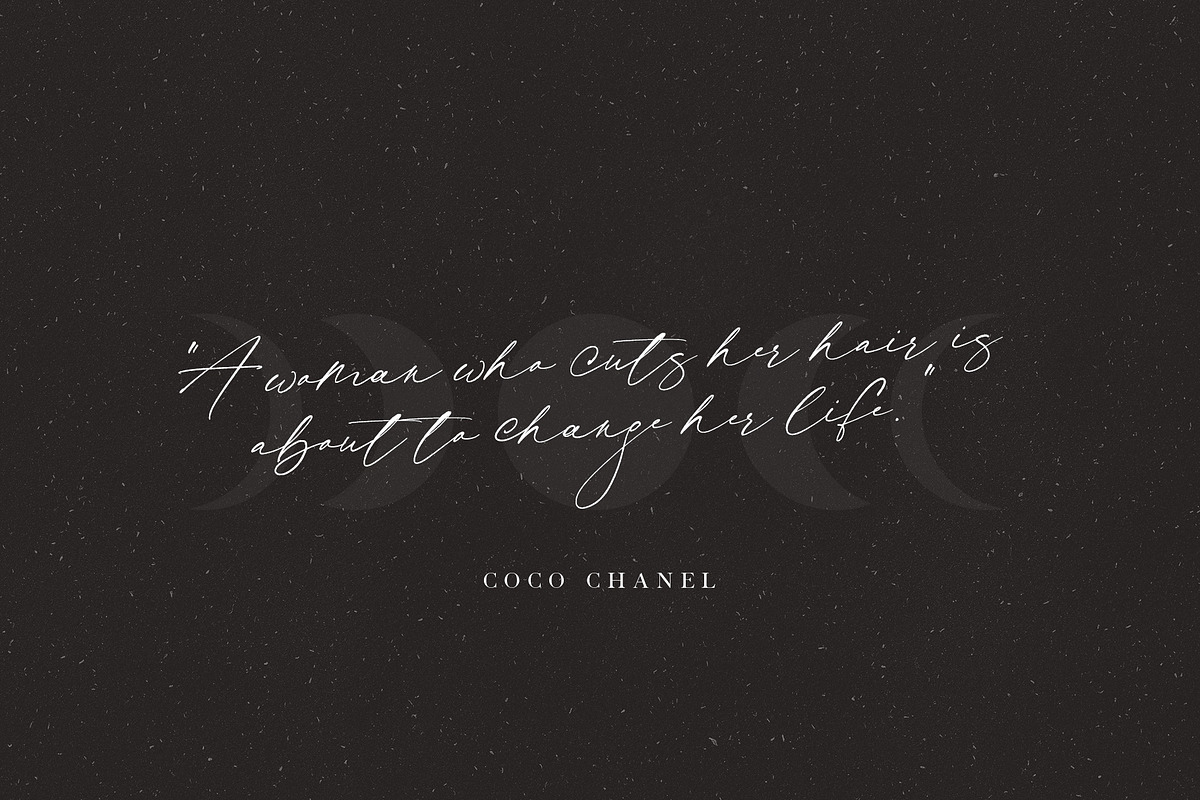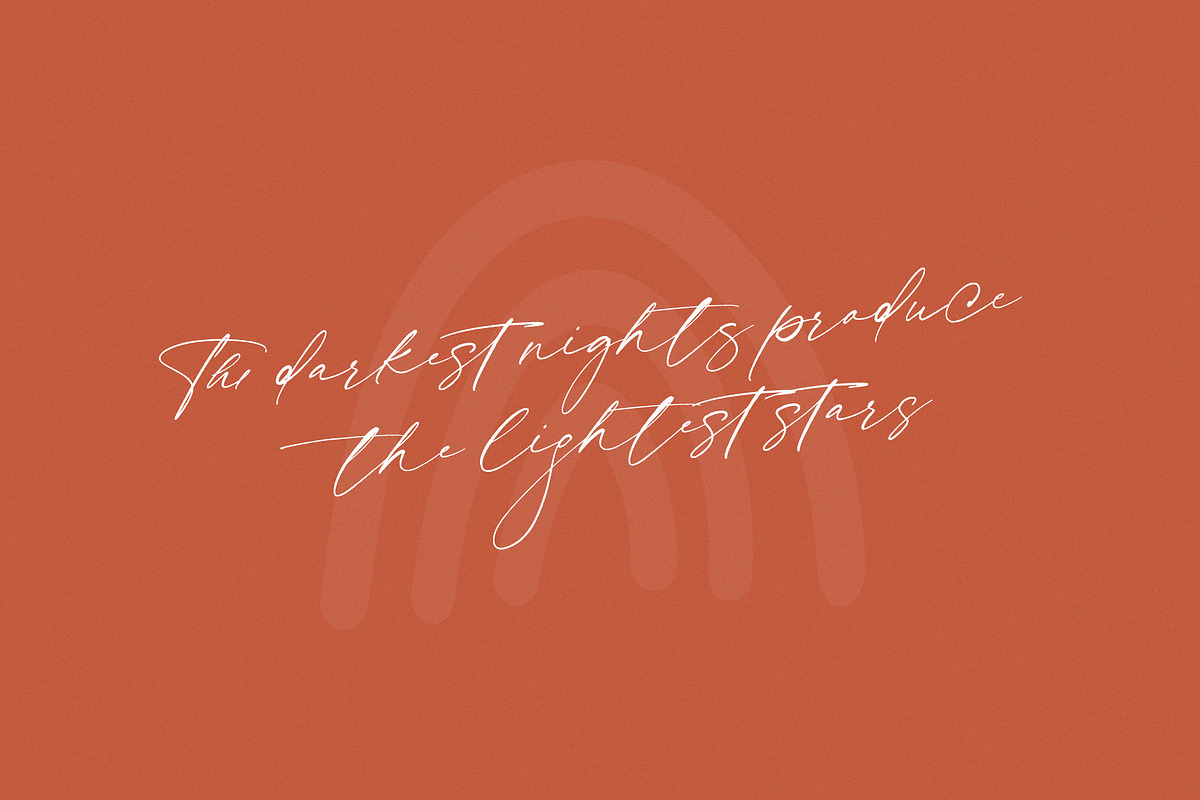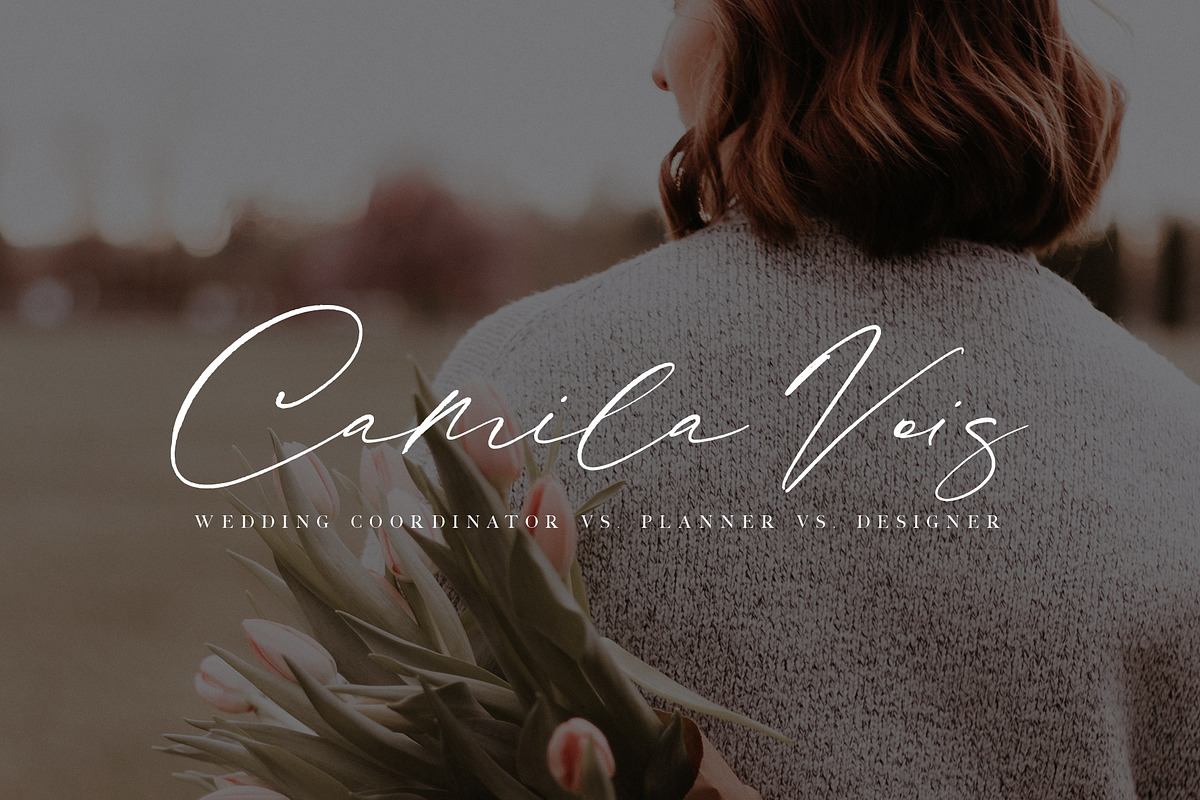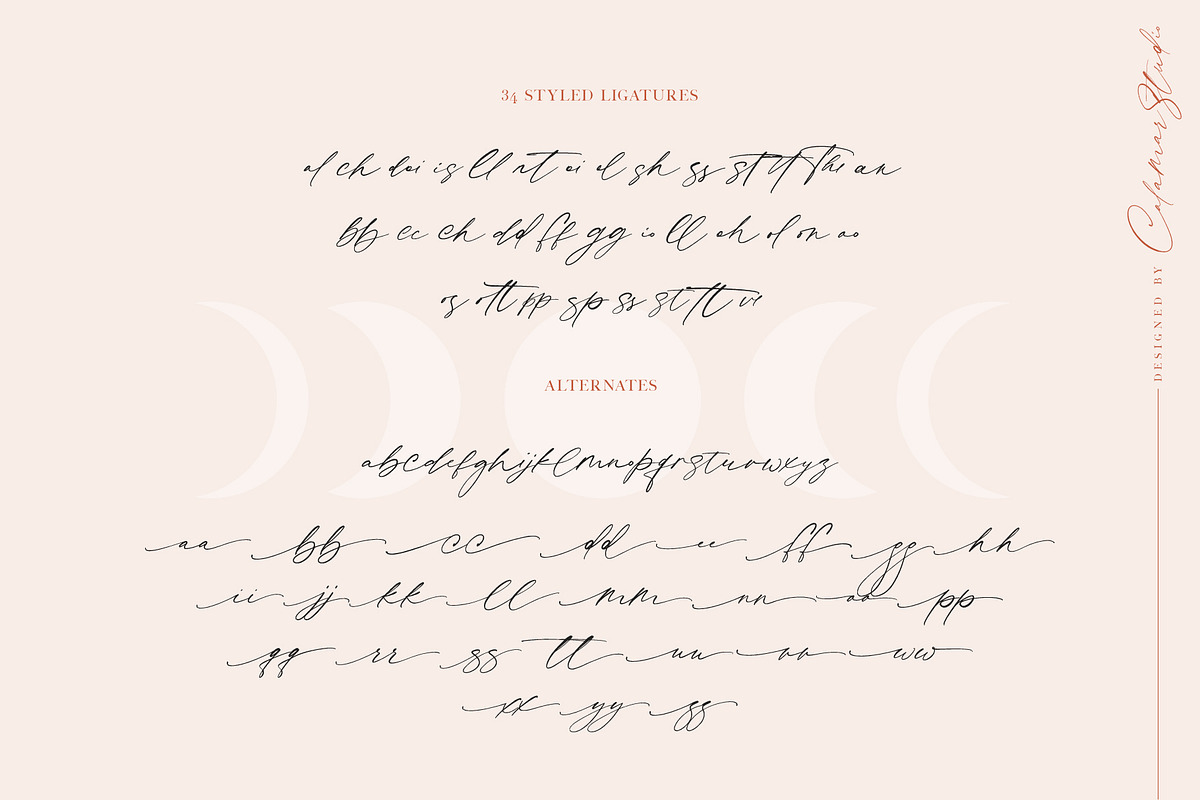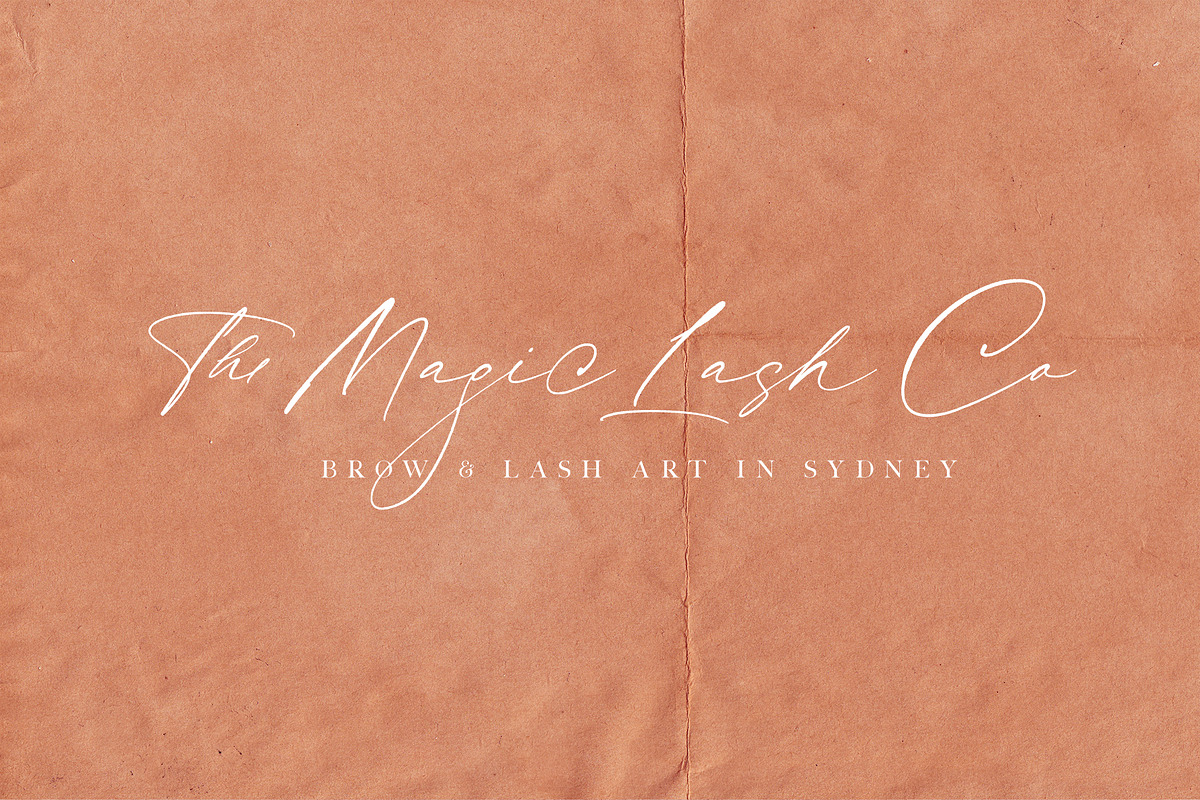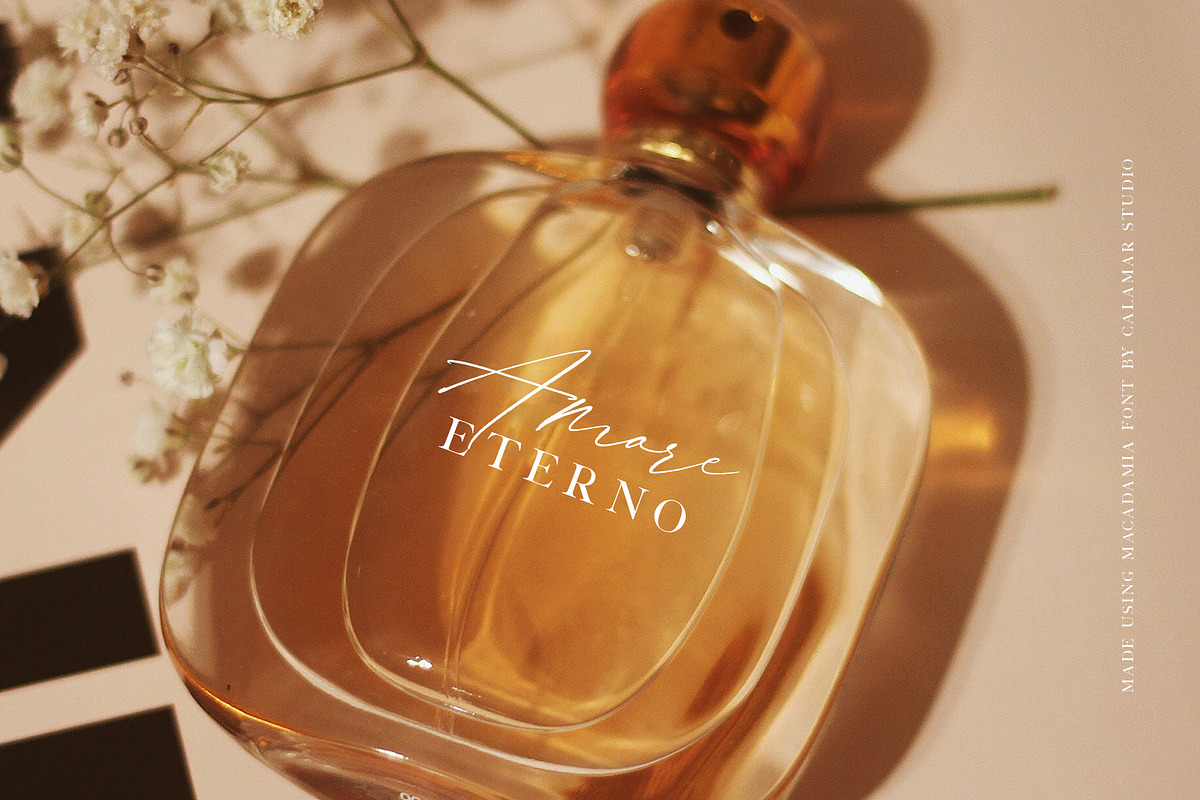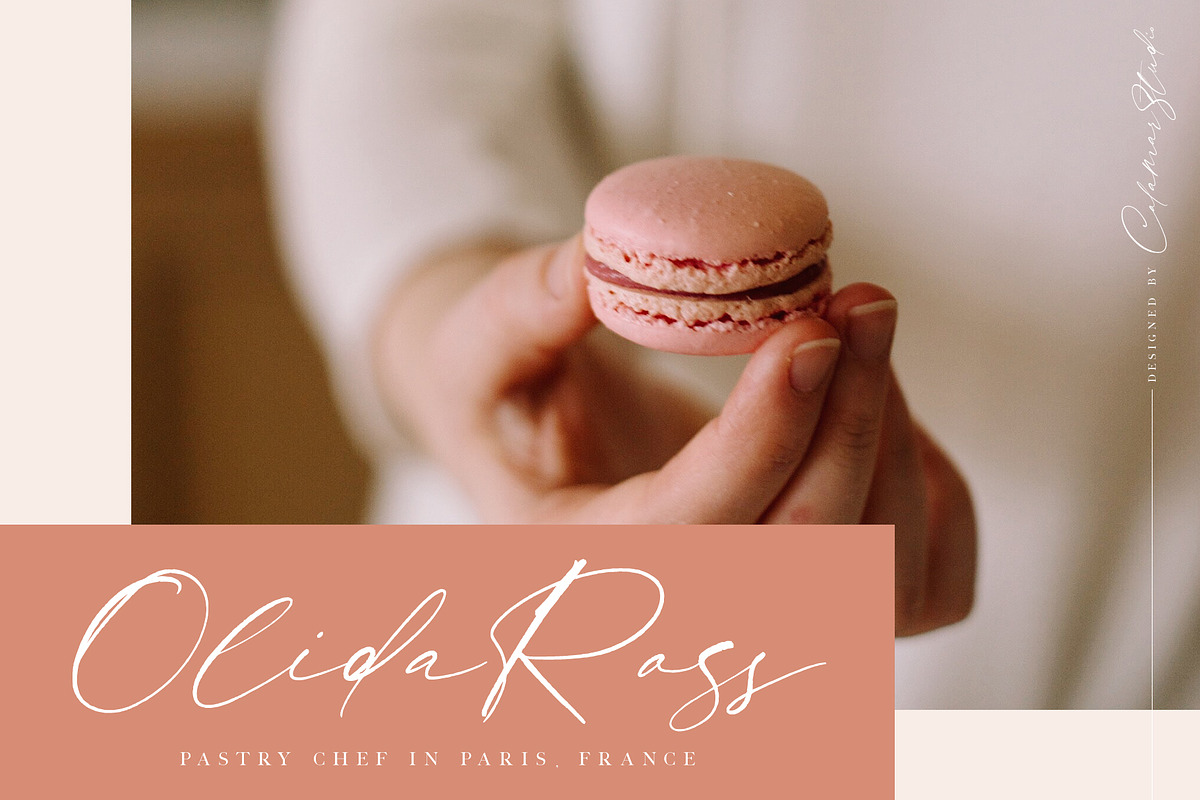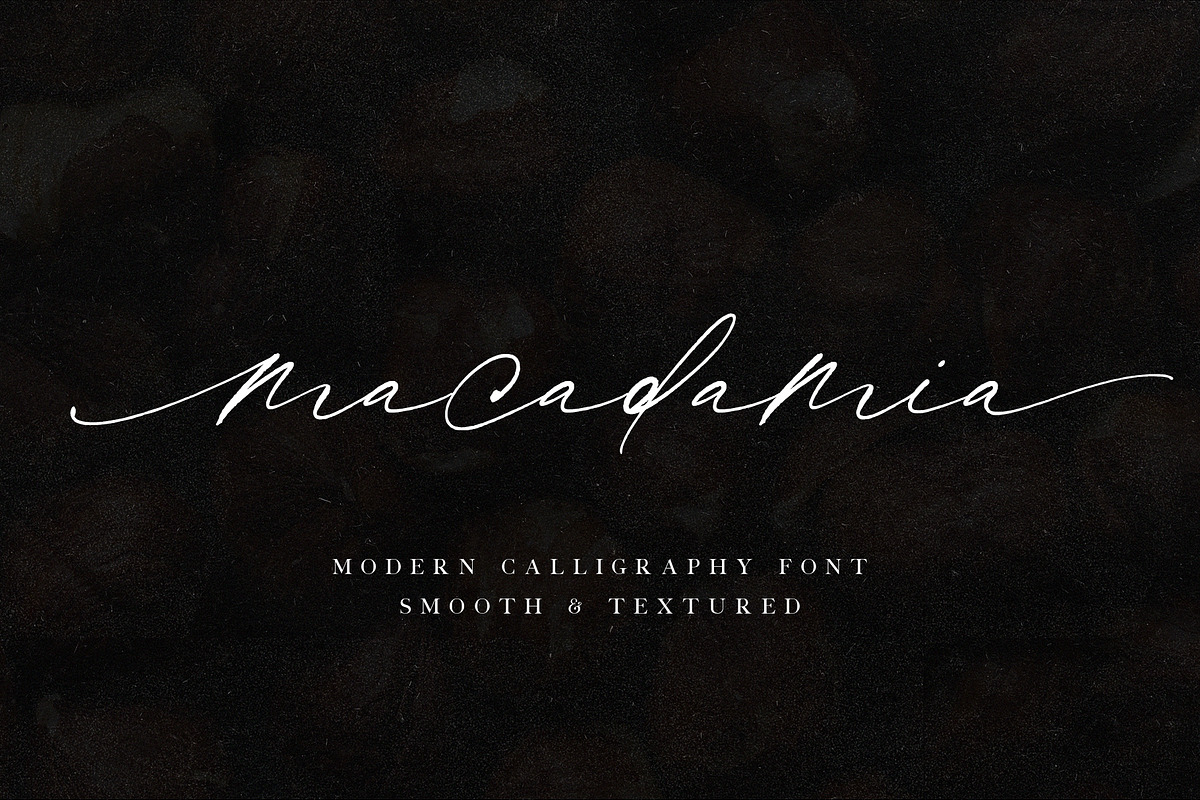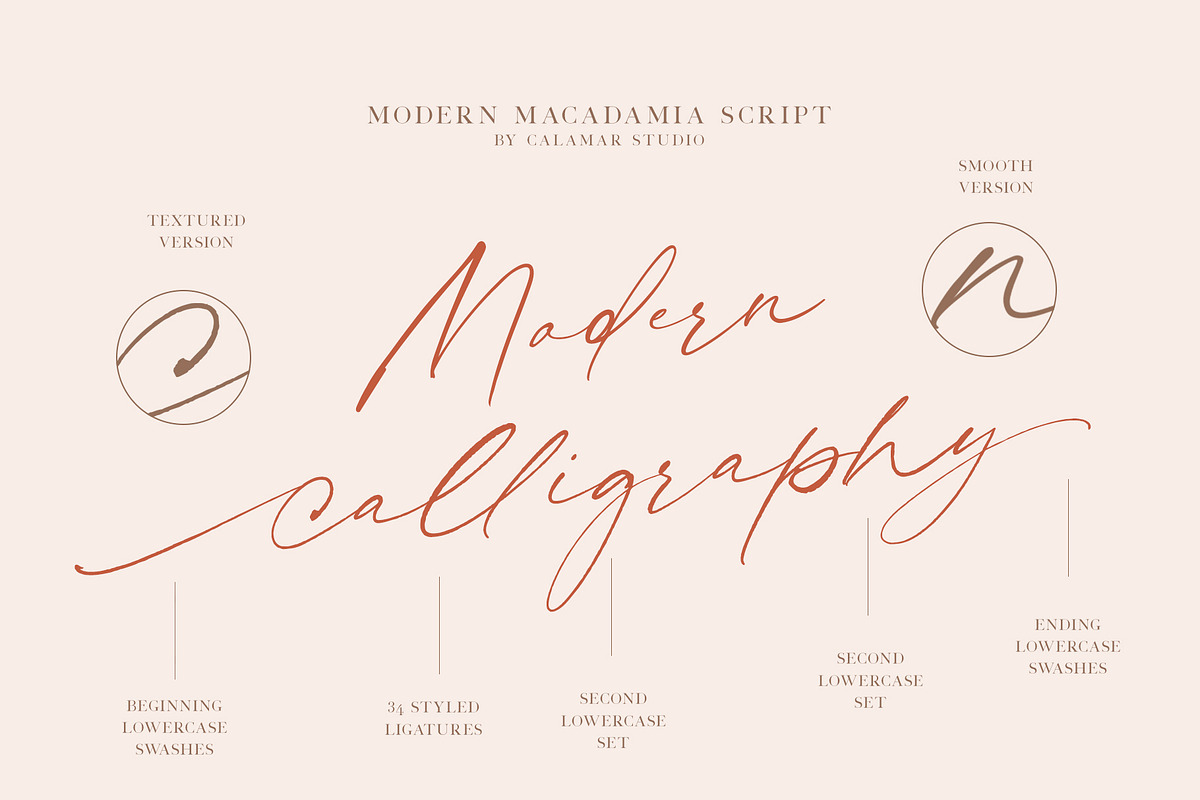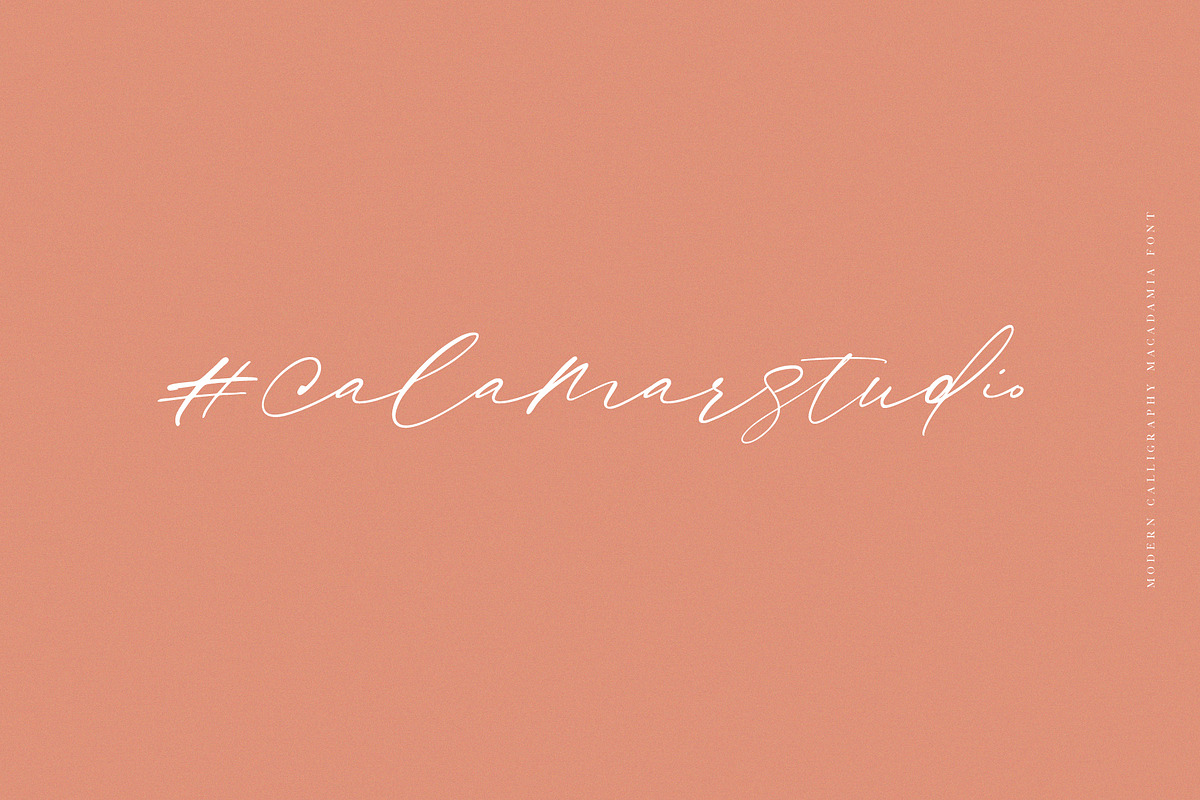
Macadamia | Handwritten Font
Happy to introduce my new calligraphy font created in two versions - smooth and textured.
Add a touch of style to your projects with the new Macadamia Script. This font particularly well suited for wedding invitations, cards, signature logos and other branding projects.
Macadamia Script includes Upper and Lowercase Basic Characters, Numbers and Punctuation. It also includes large selection of ligatures and lowercase alternates that make your type look more like natural handwriting rather than a font.